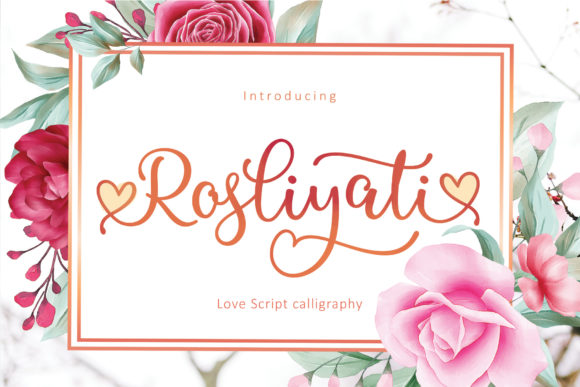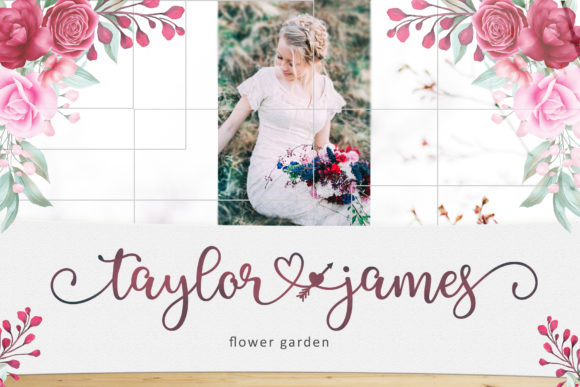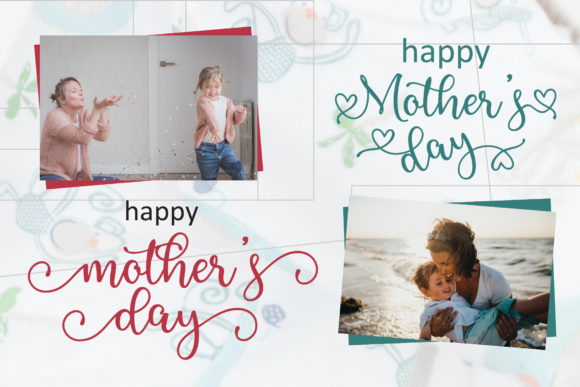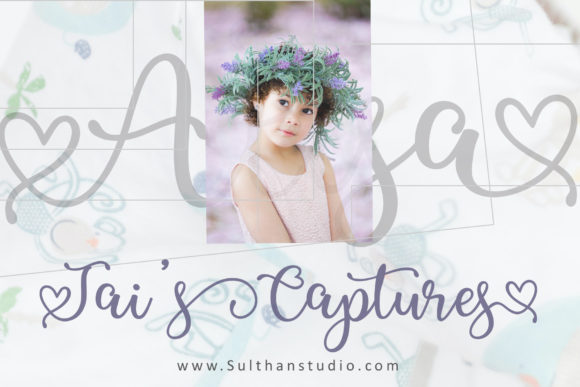
Rosliyati Font: Elegant Calligraphy Script for Wedding & Logo Design
About the Rosliyati Font
Get ready to be inspired by Rosliyati Font, a fresh and dynamic typeface for modern creators. Rosliyati feels equally charming and elegant. It looks stunning on wedding invitations, thank you cards, quotes, greeting cards, logos, business cards and every other design which needs a handwritten touch.
This font is PUA encoded which means you can access all of the glyphs and swashes with ease! It features a varying baseline, smooth lines, gorgeous glyphs and stunning alternates.
Rosliyati’s elegant charm makes it ideal for branding projects requiring a sophisticated, handwritten feel, particularly logos, short-form marketing materials, and social media graphics. It excels in headlines and short text blocks, adding a touch of personality without sacrificing readability. However, its flowing script style is less suitable for body text or UI elements where legibility over long passages is paramount.
Pairing Rosliyati effectively involves balancing its delicate elegance. Consider pairing it with a clean sans-serif like Lato for a modern contrast, or a classic serif like Garamond for a more traditional feel. A geometric sans-serif like Montserrat can add a touch of contemporary edge, while a simple, neutral font like Open Sans provides a stable, legible foundation for supporting text.
Its core personality is best described as elegant and sophisticated, yet approachable. Brands emphasizing luxury, handcrafted goods, or personalized services will find Rosliyati a highly effective choice.
Rosliyati Font Usage Examples
Rosliyati Font Example